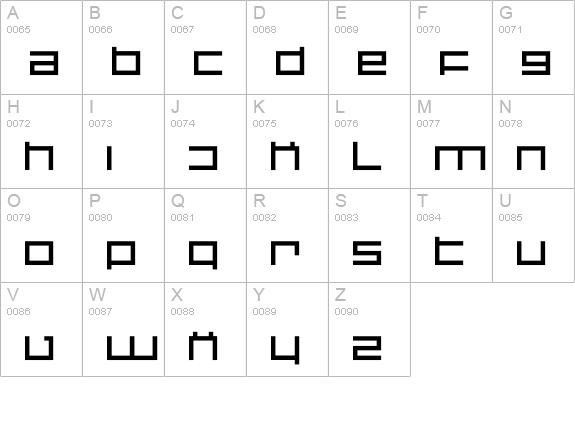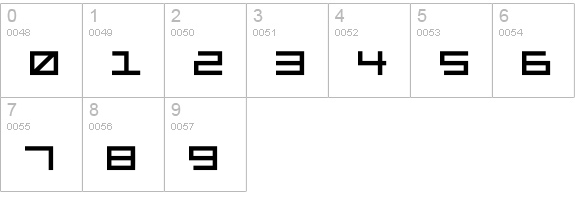
DS SQR75 Font Details
DS SQR75 font is a modern and stylish typeface that exudes confidence and sophistication. Its clean lines and geometric shapes make it perfect for a wide range of design projects, from branding to editorial design. The DS SQR75 font is versatile and can be used in both headings and body text, giving your projects a polished and professional look. The best part? DS SQR75 font is available for free download at FontsMarket.com. This means you can easily access this high-quality font without any cost, making it a valuable addition to your font collection. Don't miss out on the opportunity to enhance your designs with the sleek and contemporary DS SQR75 font - download it today and take your projects to the next level.